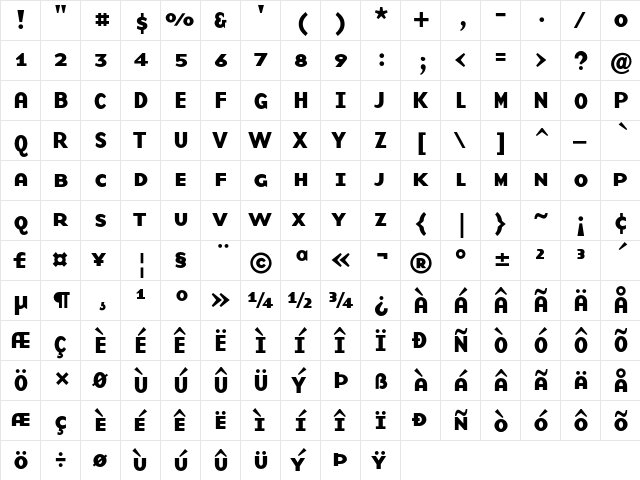
Base9SC SCB
Design Context for Base9SC Typeface
Base9SC is a composed and adaptable typeface that performs quietly and consistently across a wide range of design contexts.